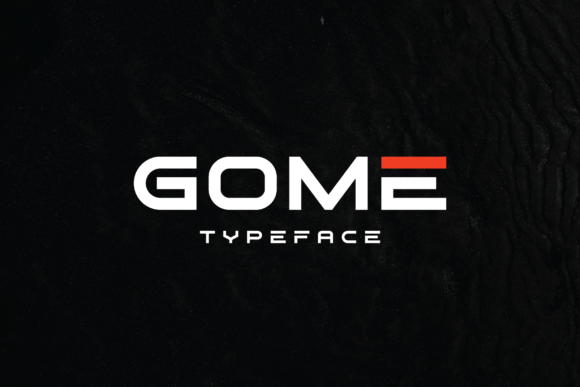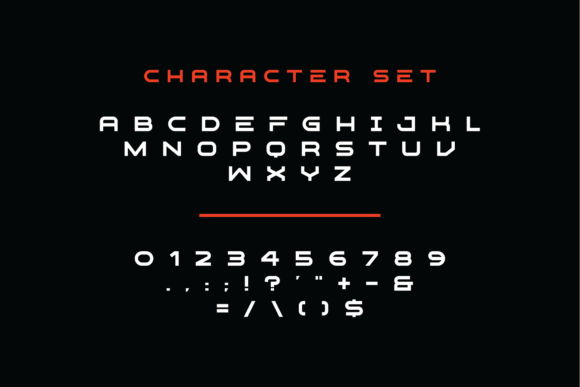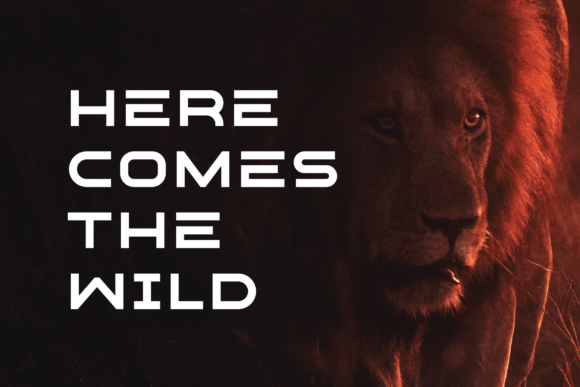
Unlocking the Power of Gome Font: Elevate Your Creative Vision
Have you ever stared at a blank canvas, struggling to find the perfect font to convey your message? The frustration is real, but what if you could break free from the ordinary and make a bold statement with your design? That’s where the Gome Font comes in – a game-changing, wide futuristic font that’s about to revolutionize the way you create.
With its extended glyphs, Gome Font is designed to grab attention and leave a lasting impression. Whether you’re crafting a title, branding a new business, or creating a social media post, this versatile font is the perfect tool to elevate your creative vision. As a designer, you know how valuable it is to have the right font at your disposal – and Gome Font is sure to become your new go-to choice.
Gome Font Key Features
- Font Family: Gome Font is a sans-serif font family designed for digital use.
- Language Support: Covers a wide range of languages, including Latin, Cyrillic, and Greek alphabets.
- Unique Characteristics: Gome Font features a clean, modern design with a focus on legibility and readability, making it suitable for digital interfaces and user-friendly applications.
Gome Font Review
Gome Font is a decent addition to the font family, offering a clean and modern look. Here’s what I think:
- Clean lines and minimalistic design make it perfect for modern designs.
- The font family has a good range of weights, from light to bold.
- It’s highly legible, making it great for body text.
- Works well with most color schemes.
- Some characters may appear too thin, making them difficult to read at small sizes.
- The font lacks personality and uniqueness, making it blend in with the crowd.
- May not be the best choice for headings or titles, as it can get lost in the design.
- Not ideal for bold, attention-grabbing designs.
Overall, Gome Font is a solid choice for everyday use. While it may not stand out from the crowd, it’s a reliable option that gets the job done. If you’re looking for a clean and modern font for your next project, Gome Font is worth considering.
Getting the Most Out of Gome Font
For optimal results, use Gome Font in combination with bold or italic styles to create visual hierarchy and emphasis.
Experiment with different font sizes and line spacings to create a unique and engaging visual design.
Gome Font is ideal for:
- Body text in modern and minimalist designs
Alternatives to Gome Font for Designers
Noto Sans
Noto Sans is a free, open-source sans-serif font designed by Google. It is highly legible and suitable for body text, especially in digital interfaces. Use Noto Sans when you need a clean, modern sans-serif font that is easy to read.
Compared to Gome Font, Noto Sans is more versatile and has a wider range of language support. It is also optimized for digital interfaces and is highly legible even at small font sizes.
Avenir Next
Avenir Next is a modern sans-serif font designed by Adrian Frutiger. It is highly legible and suitable for body text, especially in print materials. Use Avenir Next when you need a sophisticated, modern sans-serif font that is easy to read.
Compared to Gome Font, Avenir Next has a more elegant and refined feel. It is also highly legible in print materials, making it suitable for business cards, brochures, and other marketing materials.
Inter is a modern sans-serif font designed by Rasmus Andersson. It is highly legible and suitable for body text, especially in digital interfaces. Use Inter when you need a clean, modern sans-serif font that is easy to read.
Compared to Gome Font, Inter is more modern and has a more streamlined feel. It is also highly legible even at small font sizes, making it suitable for digital interfaces.
Open Sans is a free, open-source sans-serif font designed by Steve Matteson. It is highly legible and suitable for body text, especially in digital interfaces. Use Open Sans when you need a clean, modern sans-serif font that is easy to read.
Exploring Gome Font in Creative Projects
Project 1: Retro-Futuristic Billboard
Design a vibrant billboard that screams of nostalgia and futurism, featuring the Gome Font as its main attraction.